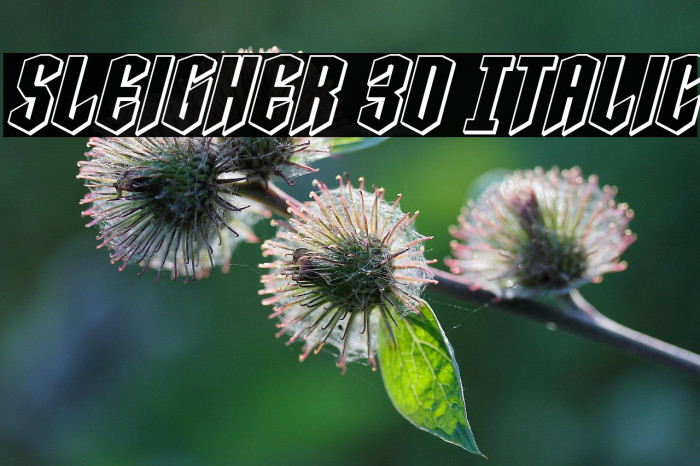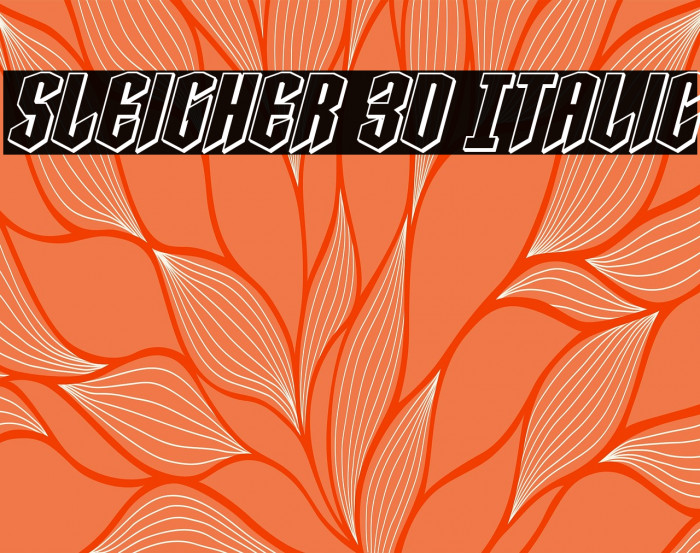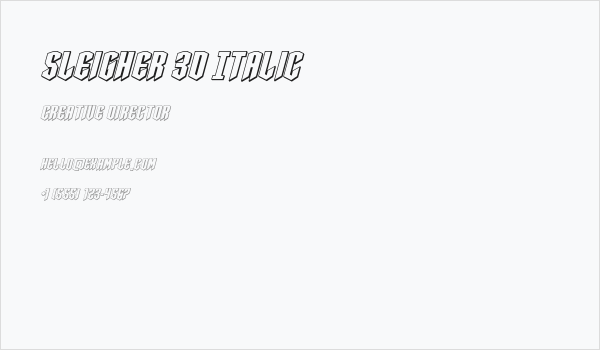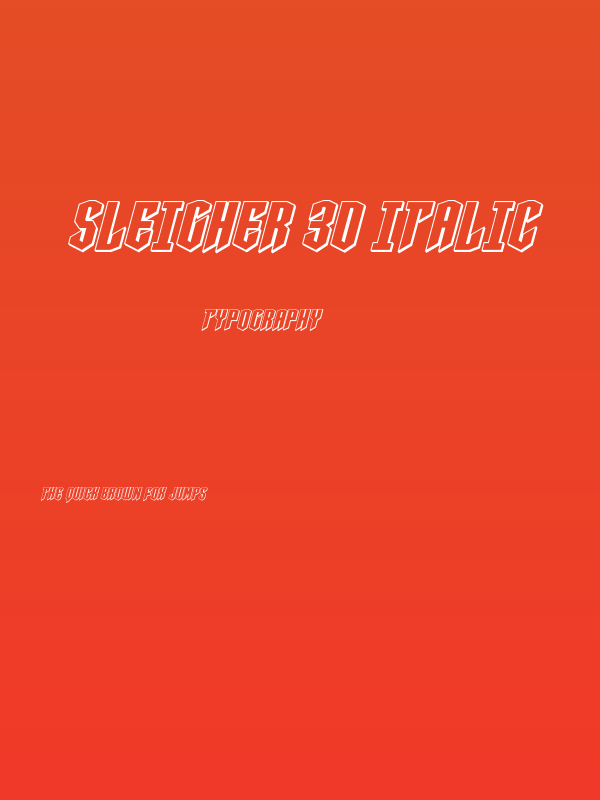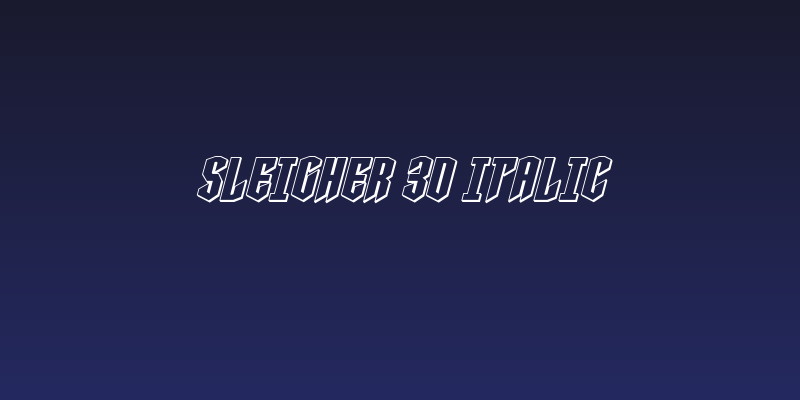
Sleigher 3D Italic Font
Sleigher 3D Italic Description
This font features a bold, three-dimensional design with an italic slant, giving it a dynamic and energetic appearance. The characters are outlined with a thick black border, enhancing the 3D effect and making each letter stand out prominently. The style is reminiscent of action-packed comic book titles or sports team logos, with sharp angles and a sense of movement. The uppercase and lowercase letters maintain a consistent style, while the numbers and special characters are equally bold and impactful. This font is ideal for projects that require a strong visual presence and a modern, edgy look.